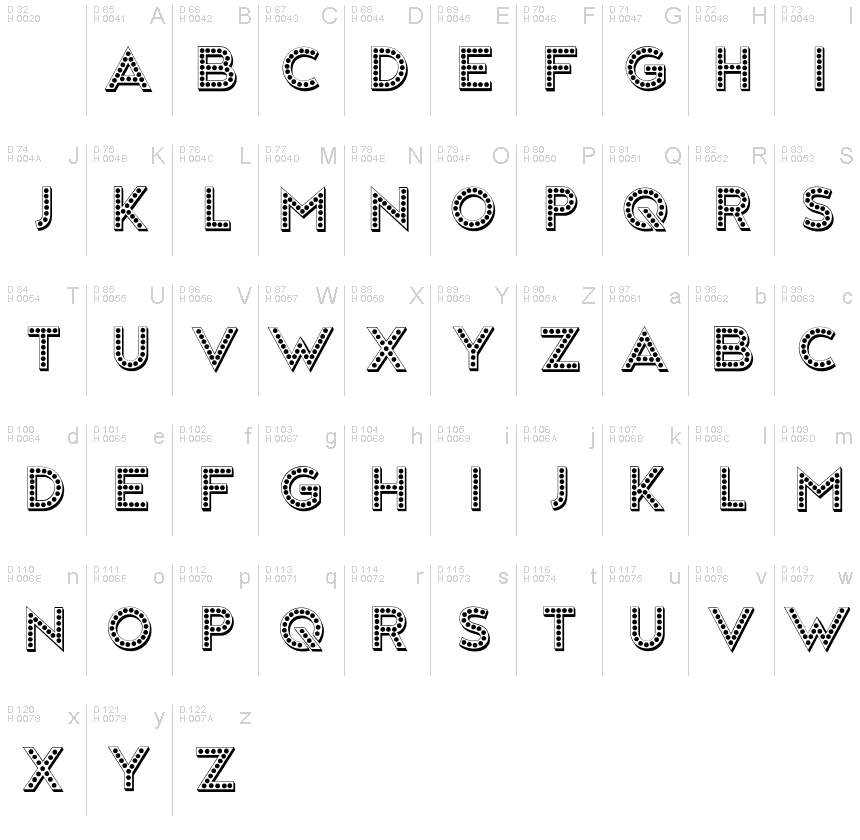
Showgirl Regular
Looking to add a little glitz and glamour to your next project? Introducing Showgirl, a stunning display font designed by Vladimir Nikolic. With its decorative style and bold lettering, this font is perfect for everything from party invitations to theatre posters. Its unique design is sure to make your text stand out and capture the attention of anyone who sees it. Whether you're creating a vintage-inspired advertisement or designing eye-catching signage for your business, Showgirl's semi-bold typeface and elegant curves are sure to impress. Don't miss out on the chance to add some pizzazz to your next project with Showgirl.